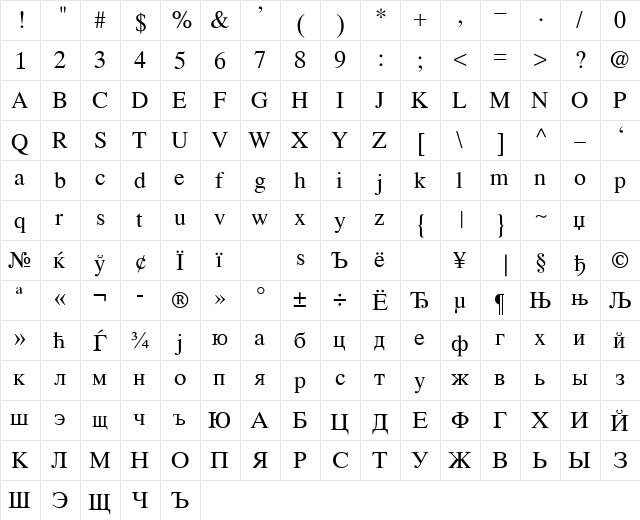
KOI8 Times Regular
Design Context for KOI8 Times Typeface
KOI8 Times takes a measured approach to typography — its balanced proportions and neutral character make it a reliable workhorse for both digital and print work.